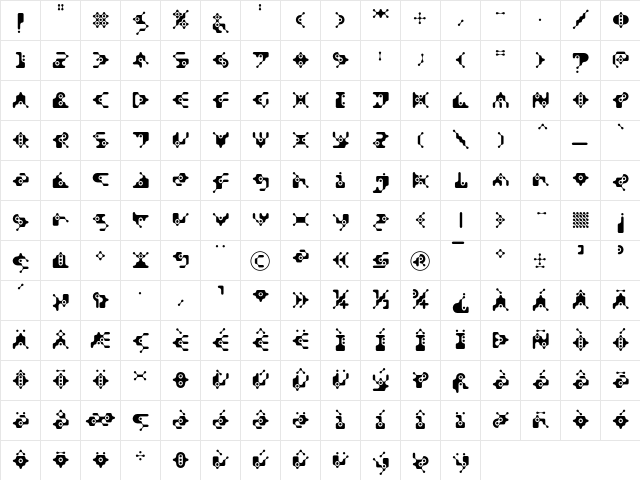
DigitalWaste Regular Free Font
DigitalWaste Regular
Design Context for DigitalWaste
DigitalWaste has a distinctly futuristic character, with geometric precision and clean angles that feel at home in technology, gaming, and sci-fi contexts.
Pro Tip: Try DigitalWaste with generous letter-spacing in UI labels and navigation - the geometric forms benefit from room to breathe.